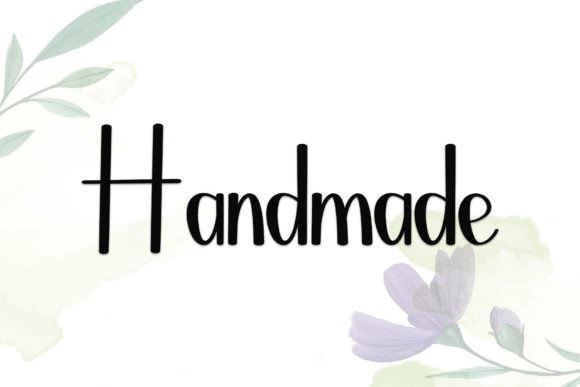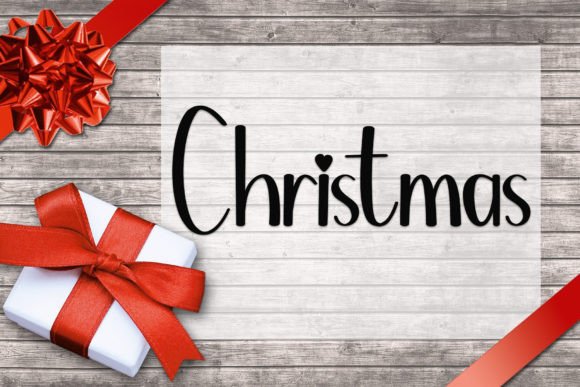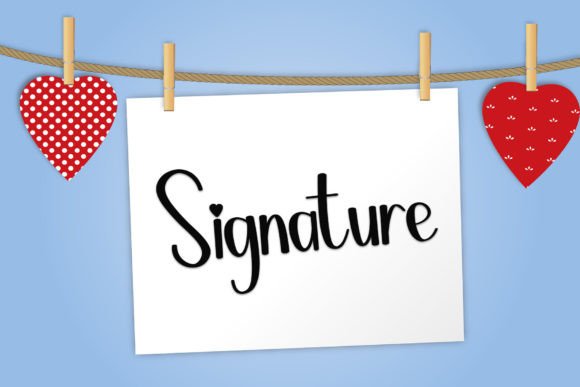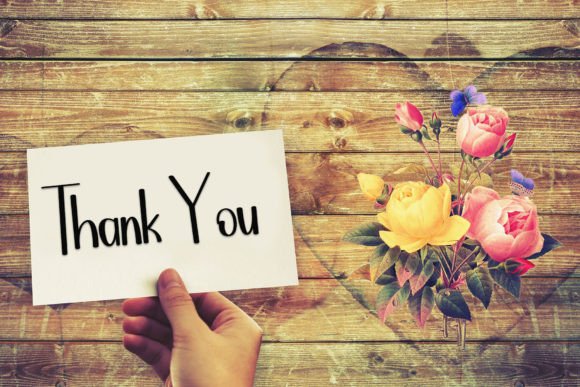
Circular Font: Elevate Your Designs with Elegance and Timelessness
Circular is a neat and beautiful handwritten font described by an elegant touch, perfect for your favorite projects. Fall in love with its incredibly distinct and timeless style, and use it to create spectacular designs! In this article, we’ll dive into the world of Circular Font, exploring its unique features, and how it can elevate your designs to new heights.
The Beauty of Circular Font
Circular Font is a stunning handwritten font that exudes elegance and sophistication. Its unique, circular shape gives it a distinctive look that’s both modern and timeless. The font’s smooth lines and curves create a beautiful, flowing effect that’s perfect for a wide range of design projects. Whether you’re working on a logo, branding materials, or social media graphics, Circular Font is sure to make a lasting impression.
Key Features of Circular Font
- Elegant Touch: Circular Font boasts an elegant touch that’s perfect for designs that require a high level of sophistication.
- Handwritten Style: The font’s handwritten style gives it a personal, human touch that’s perfect for creating unique and engaging designs.
- Distinctive and Timeless: Circular Font’s incredibly distinct and timeless style makes it perfect for designs that need to stand the test of time.
- Versatile: The font is versatile and can be used for a wide range of design projects, from logos and branding materials to social media graphics and more.
Why Designers and Crafters Love Circular Font
Circular Font has quickly become a favorite among designers and crafters due to its unique features and versatility. Here are just a few reasons why:
- Highly Customizable: Circular Font can be easily customized to fit your design needs, from adjusting the size and color to adding effects and textures.
- Unique and Creative: The font’s unique, circular shape gives designers and crafters a creative edge that’s hard to find with other fonts.
Using Circular Font in Your Designs
Circular Font is perfect for a wide range of design projects, including:
- Logos and Branding Materials: Use Circular Font to create a stunning logo or branding materials that will make your business stand out.
- Social Media Graphics: Create engaging social media graphics that will grab the attention of your followers.
- Invitations and Stationery: Use Circular Font to create beautiful invitations and stationery that will add a touch of elegance to any occasion.
- Web Design: Circular Font is perfect for web design projects, from website headers to blog posts.
Tips and Tricks for Getting the Most Out of Circular Font
Here are a few tips and tricks for getting the most out of Circular Font:
- Experiment with Colors: Try pairing Circular Font with different colors to create a unique and eye-catching effect.
- Play with Texture: Add texture to your design by combining Circular Font with different textures and patterns.
- Use it with Other Fonts: Don’t be afraid to pair Circular Font with other fonts to create a unique and creative effect.
Circular Font is a stunning handwritten font that’s perfect for designers and crafters looking to elevate their designs with elegance and timelessness. With its unique features, versatility, and ease of use, Circular Font is sure to become a favorite in your design toolkit. So why wait? Fall in love with Circular Font and start creating spectacular designs today!